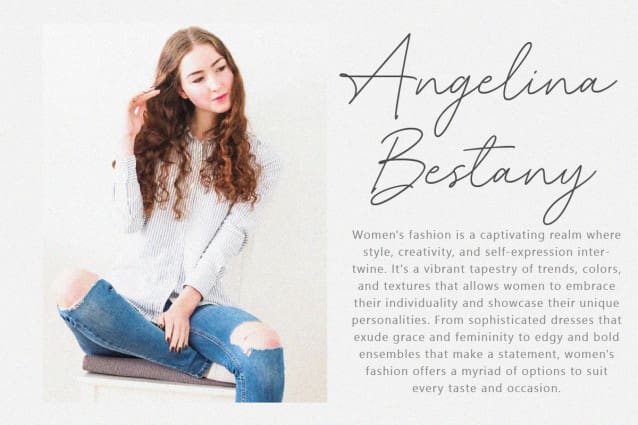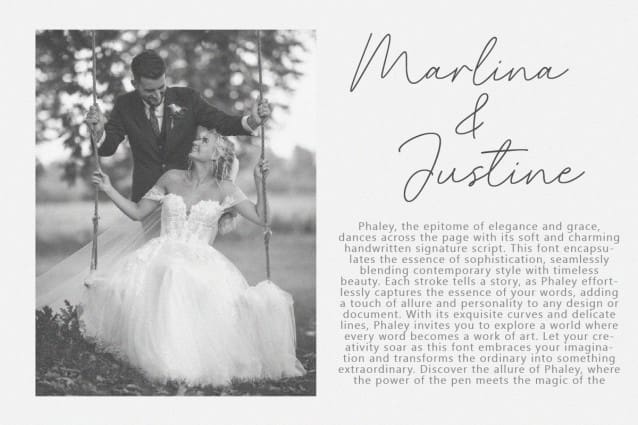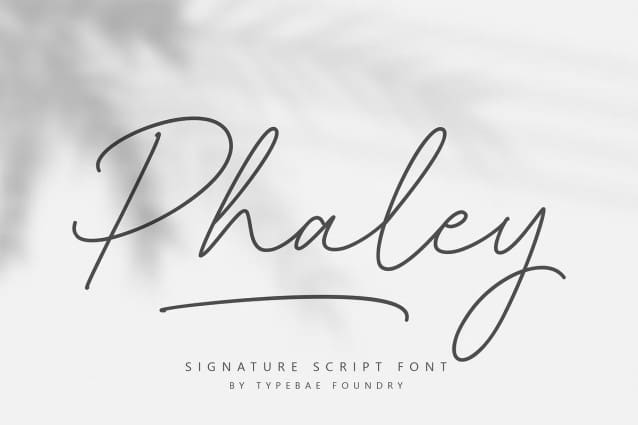
Phaley Script Font
Phaley Script Font is a soft and charming handwritten signature script font that effortlessly exudes elegance and grace. With its delicate curves and timeless beauty, it adds a touch of allure and personality to any design or document, transforming words into works of art.